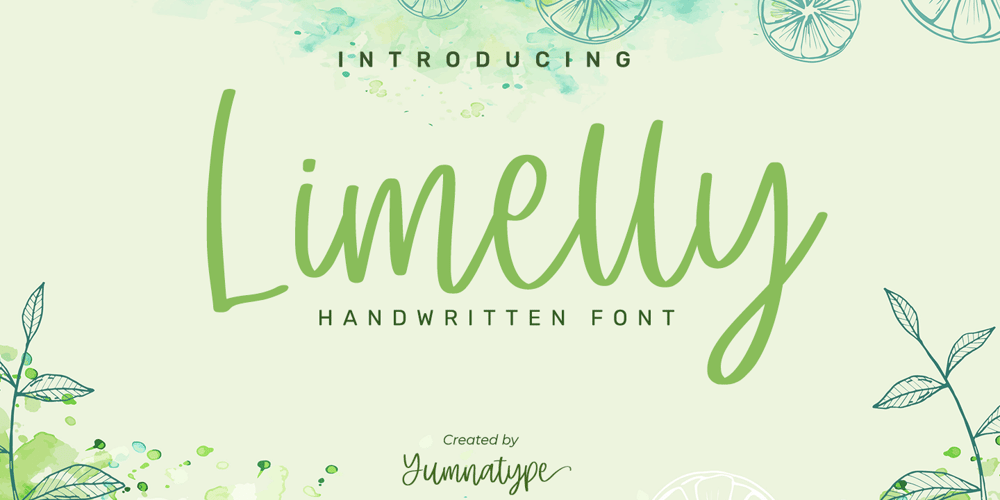
Limelly
Limelly font
Limelly Font Family was designed by Donis Miftahudin and published by Yumna Type. Limelly contains 1 styles and family package options. Limelly is a elegant handwritten font. Made for any professional project branding. It is the best for logos, branding and quotes. Every letter has a unique and beautiful touch.Includes:Limelly (OTF)Features: Standard Ligatures Stylistic Set PUA Encoded Multilingual Support Numerals and Punctuation by Yumnatype